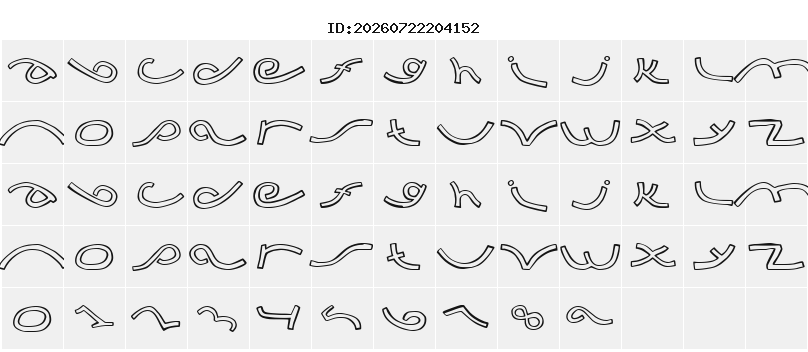
• Font Name: Music DBZ
• Designer: Tom Murphy 7
• Manufacturer: [ Divide By Zero ] Fonts
• Description: Postmodern outline font I made for my Letterform Design class. It's super-wide, and many words don't look very good in it. For the entire DBZ collection: http://fonts.tom7.com/